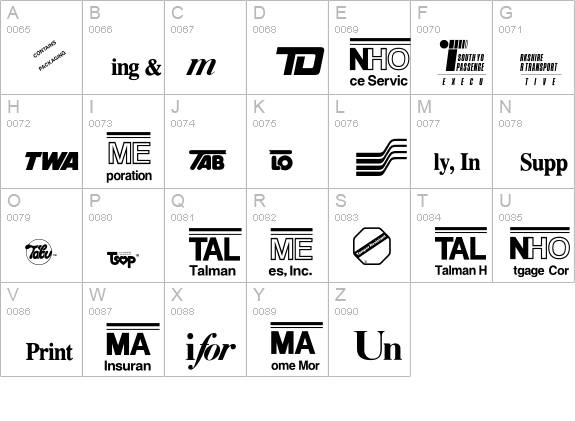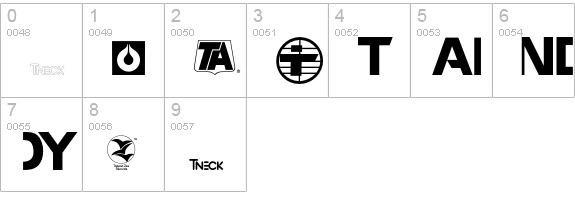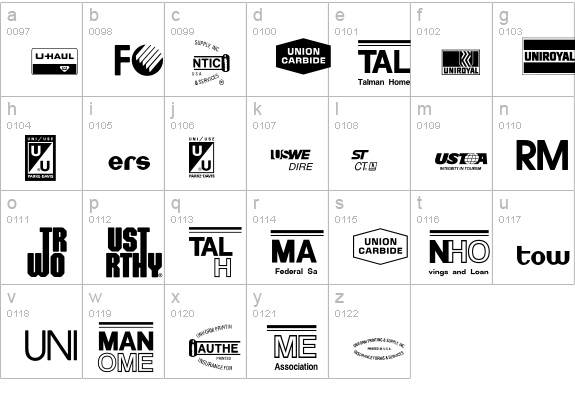
LogosCompanyP18 Font Details
LogosCompanyP18 font is a versatile and modern typeface that exudes elegance and sophistication. With its clean lines and balanced proportions, this font is perfect for a wide range of design projects, from branding to editorial design. The sleek and professional appearance of LogosCompanyP18 font makes it ideal for creating logos, headlines, and body text that demand attention. What sets LogosCompanyP18 font apart is that it is available for free! You can easily download this font from FontsMarket.com and start using it in your projects right away. Whether you're designing a website, creating marketing materials, or working on a personal project, LogosCompanyP18 font is a great choice that will elevate your design and make a lasting impression. Add a touch of sophistication to your work with LogosCompanyP18 font today!